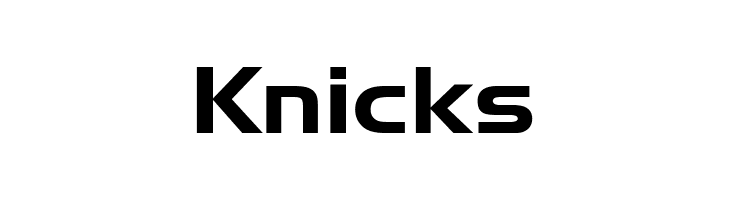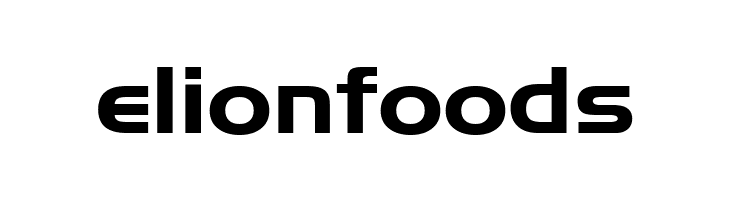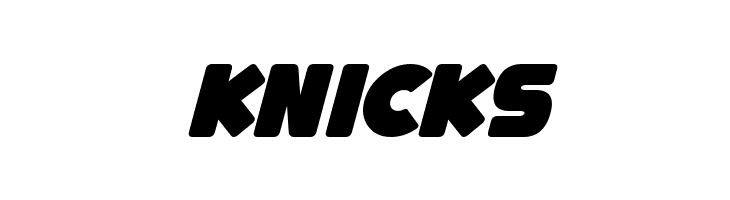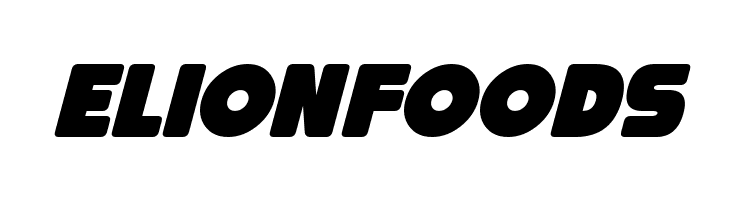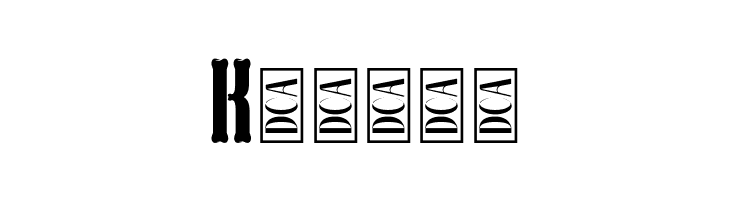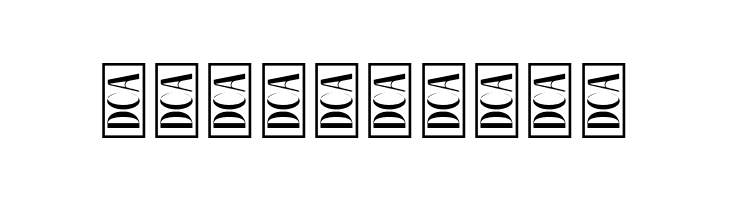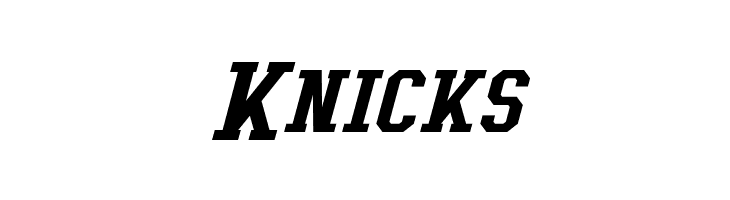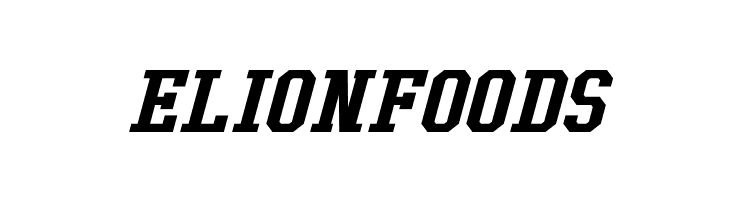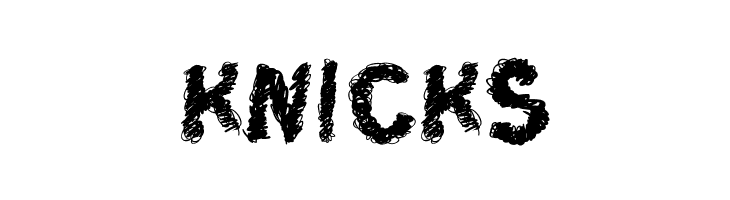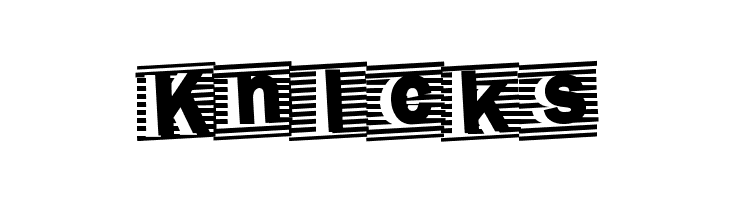
• Tonopah Italic
• TOOTH
A bold, high-contrast serif font with a vintage style and tight spacing.
• TotalEvent
A bold, striped font with a dynamic and eye-catching design.
• ToyBox Italic
A bold, playful italic font with rounded strokes and dynamic slant.
• Toyota MR2
• Trace of Rough
A rough, hand-drawn font with a textured, sketched appearance.
• Transuranium
A bold, geometric font with a futuristic and industrial design.
• Transuranium
• Travel
A playful, handwritten-style font with consistent stroke width and casual appeal.